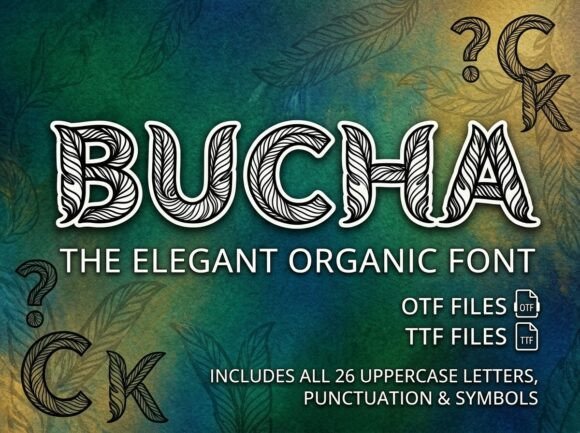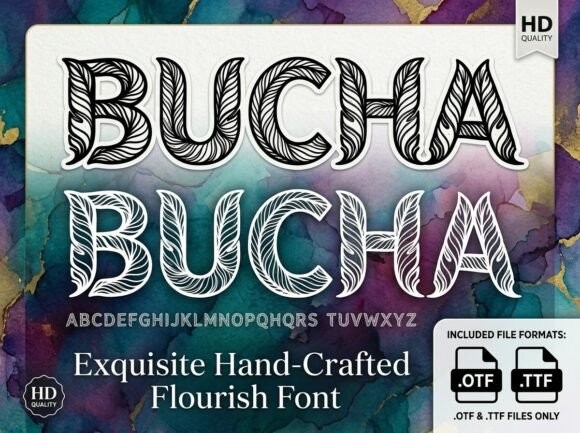
Unleash Your Creativity with Bucha Font: A Stunning Display Typeface
Have you ever been in the middle of a design project, and suddenly, you’re stuck on finding the perfect font? I recall a recent experience where I was working on a luxury spa branding project, and I just couldn’t find a font that captured the essence of elegance and sophistication I was looking for. That’s when I stumbled upon Bucha Font, a game-changing display typeface that has become my go-to for high-end designs.
What Makes Bucha Font Special?
Bucha Font is a masterpiece that embodies an “exotic-and-ornamental” soul, featuring bold letterforms that resemble rhythmic, hand-drawn peacock feathers. The intricate line work and elegant, sweeping curves evoke the natural flow of plumage, making it perfect for designs that require a touch of luxury and sophistication.
My Honest Review of Bucha Font
- ✅ Unique and eye-catching design that’s sure to make your project stand out
- ✅ Intricate line work and elegant curves that add a touch of sophistication
- ✅ Perfect for luxury spa branding, high-end fashion boutique logos, artisanal beauty packaging, and social media headers
- ✅ Easy to read, even in large sizes
- ⚠️ May not be suitable for body text or small font sizes due to its bold and ornate design
- ⚠️ Limited use of uppercase letters, but the font makes up for it with its stylistic alternates and glyphs
The Backstory Behind Bucha Font
Bucha Font was inspired by the majestic beauty of peacocks and the elegance of luxury branding. The designer aimed to create a font that would capture the essence of high-end sophistication and ornate details, perfect for designs that require a touch of glamour and refinement.
Q: What is Bucha Font best used for?
A: Bucha Font is perfect for luxury spa branding, high-end fashion boutique logos, artisanal beauty packaging, and social media headers.
Q: Can I use Bucha Font for body text?
A: While Bucha Font is a stunning display typeface, it may not be suitable for body text or small font sizes due to its bold and ornate design.
Q: Does Bucha Font have OpenType features?
A: Yes, Bucha Font features OpenType features, including stylistic alternates and glyphs, which can be accessed in compatible design software.